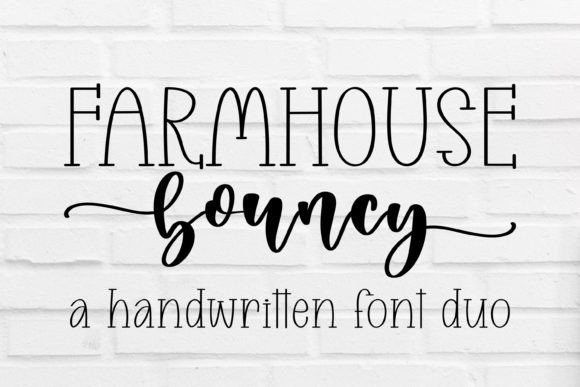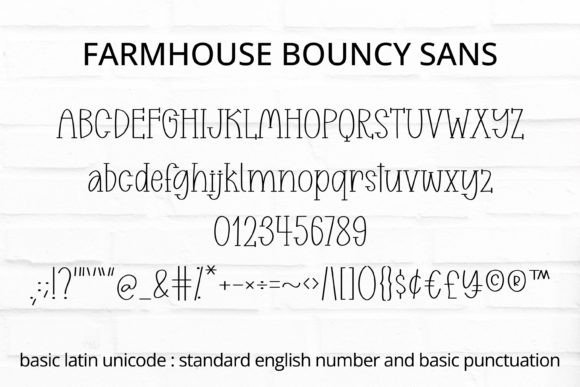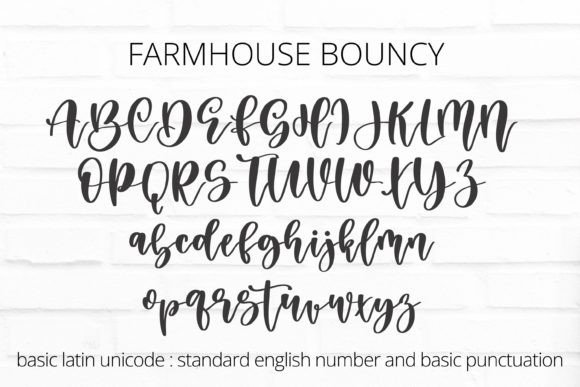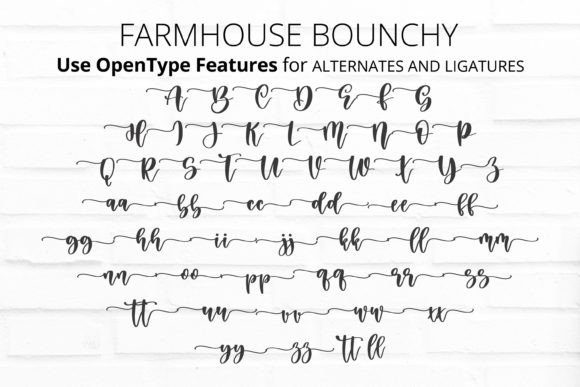
Farmhouse Bouncy Font
About the Farmhouse Bouncy Font
Explore the possibilities with Farmhouse Bouncy Font, a font that offers both beauty and functionality. Farmhouse Bouncy is a duo-styled handwritten font that feels equally charming and delicate. It will turn any creative idea into a standout! You can use it for Christmas cards, wedding designs, local signs, branding, logos, quotes, photography projects, birthday cards, and more!
Farmhouse Bouncy excels in display applications such as headlines, short text blocks on posters, and branding elements where a charming, handcrafted feel is desired. Its delicate nature makes it less suitable for body text or UI elements requiring high readability. Long paragraphs set in this font would be difficult to read.
The font’s core personality is friendly and approachable, with a touch of rustic charm. It works well for brands focusing on handmade goods, food products, or events with a rural or vintage aesthetic.
Pairing Farmhouse Bouncy with a clean sans-serif like Open Sans for body copy provides excellent contrast and readability. For a more playful feel, a rounded geometric sans-serif could also work well. Alternatively, a classic serif like Garamond would add sophistication and balance its informal style.